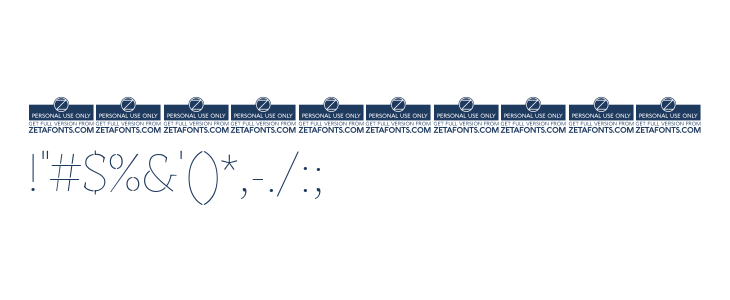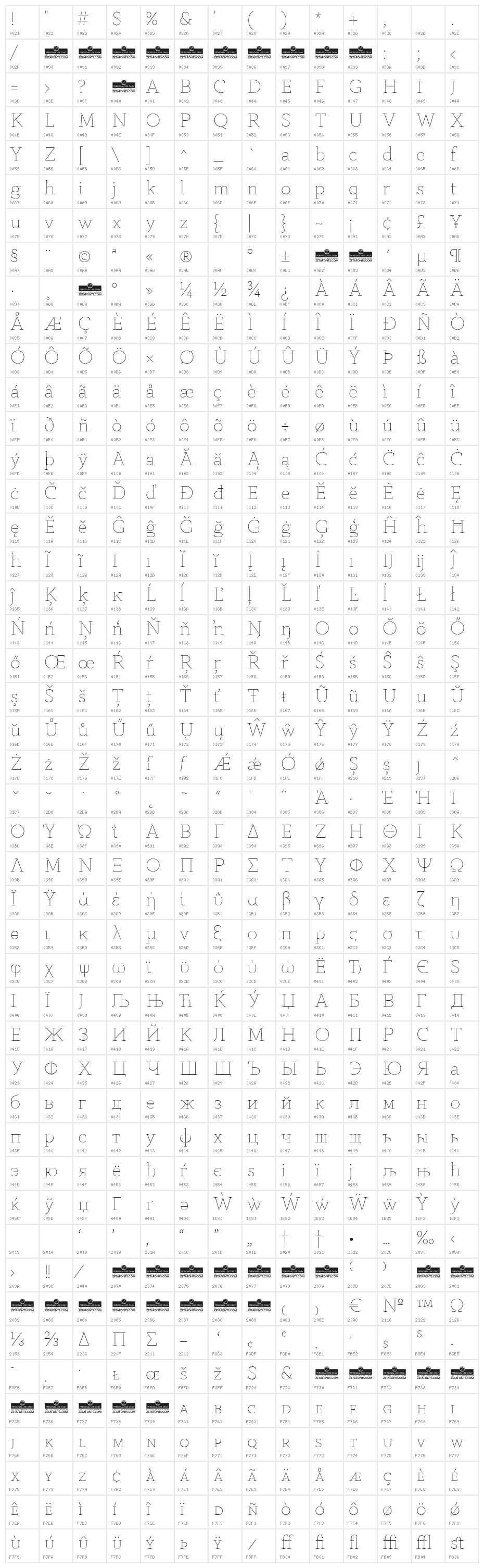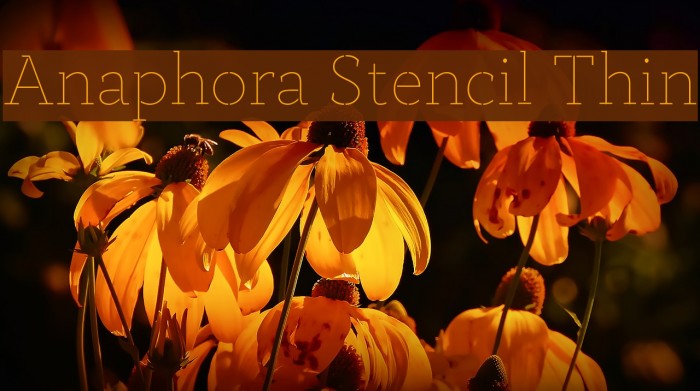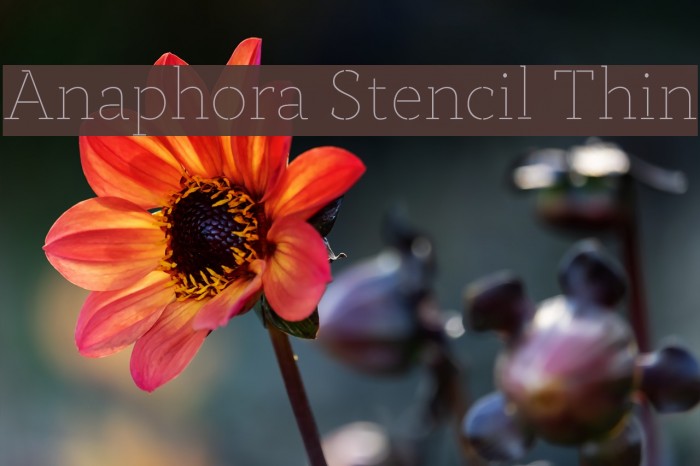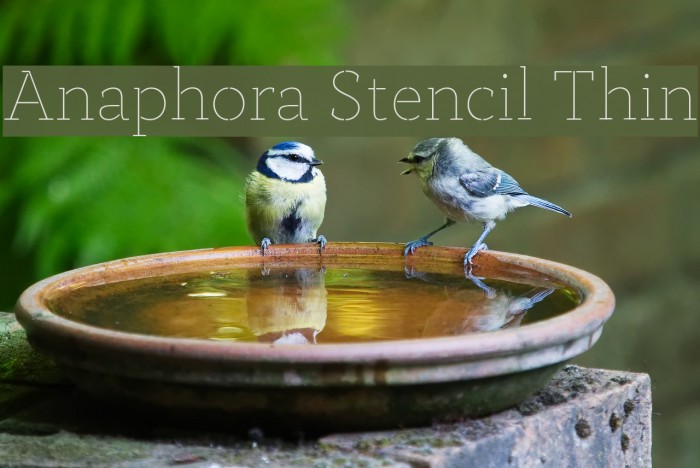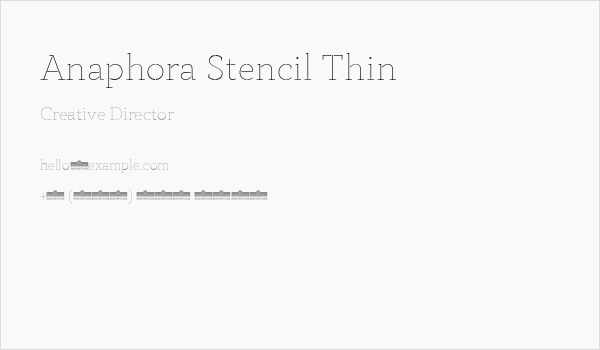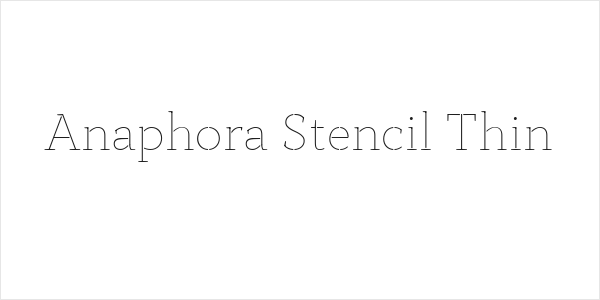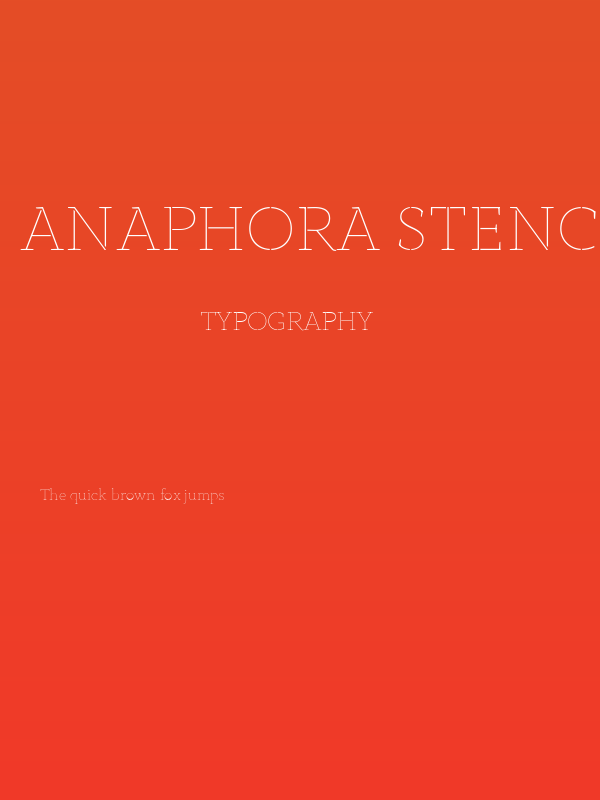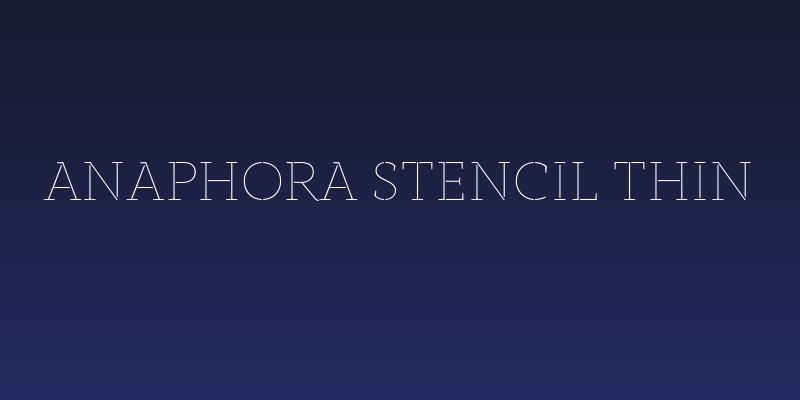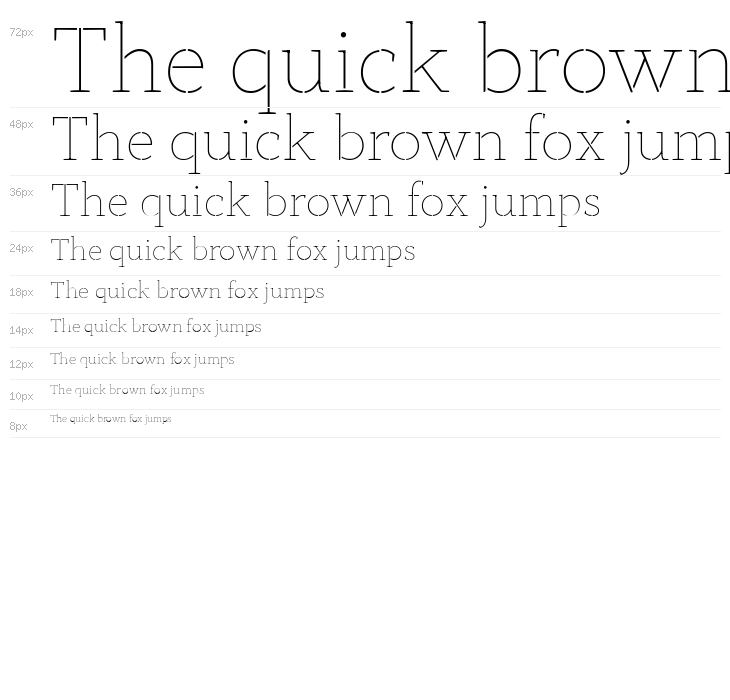
Anaphora Stencil Thin Font
Anaphora Stencil Thin Description
This font features a modern and elegant stencil design, characterized by its thin, clean lines and geometric shapes. The uppercase and lowercase letters maintain a consistent style, with precise cuts that create a unique stencil effect. The numerals and special characters follow the same aesthetic, ensuring a cohesive look across all text elements. The font's thin weight and high contrast between strokes give it a sophisticated and airy appearance, making it suitable for contemporary design projects.